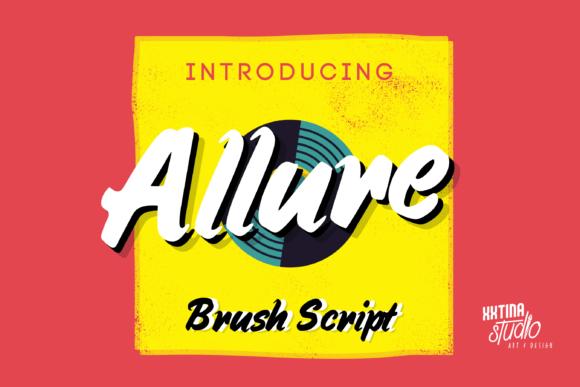
Prepare yourself to be mesmerized by Allure, a handcrafted brush script font that will instantly transform your designs and text into captivating masterpieces. As a member of the magnificent script font family, Allure is the perfect choice for those seeking to add a touch of elegance and flair to their projects.
So, what sets Allure apart from the ordinary? It's all about the details, darling! Each letter in this font exudes an undeniable charm, with its graceful strokes and playful curves that mimic the beauty of handwritten calligraphy. Whether you're designing logos, branding materials, or simply adding a personal touch to your digital creations, Allure has got you covered.
And let's not forget about readability, my dear. Allure is meticulously designed to ensure that your text remains effortlessly legible, even at smaller sizes. Its carefully crafted letterforms strike a perfect balance between aesthetics and functionality, making it a top pick for book text, where readability is paramount.
But wait, there's more! Allure is incredibly versatile, offering endless creative possibilities. Its stylish flare makes it perfect for wedding invitations, greeting cards, social media posts, and any project where you desire a touch of elegance and sophistication. Let your imagination run wild and immerse yourself in the world of Allure!